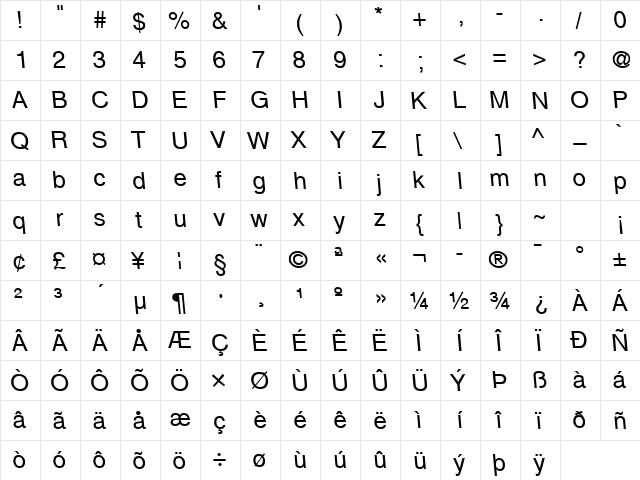
Communication 6 Regular Font Preview
Communication 6 Regular
Communication 6 Regular Font Details
Design Context for Communication 6 Typeface
Communication 6 takes a measured approach to typography — its balanced proportions and neutral character make it a reliable workhorse for both digital and print work.